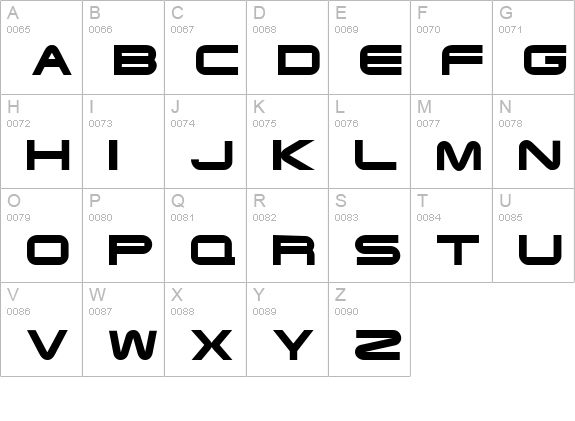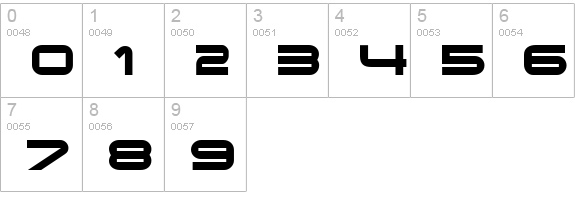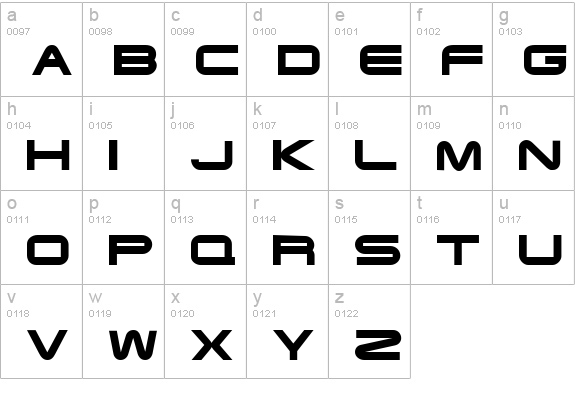
Terminator Cyr Semi-expanded Bold Font Details
Terminator Cyr Semi-expanded Bold is a strong, high-contrast, extended-width variant in the Terminator typeface family \xE2\x80\x94 well suited to headlines, attention-grabbing titles, and strong calls-to-action.
Terminator Cyr Semi-expanded Bold font is an extraordinary typeface that exudes strength and power. Its bold and assertive design captures attention and adds a touch of modernity to any project. With its semi-expanded shape, this font strikes the perfect balance between legibility and uniqueness, making it an ideal choice for headlines, posters, and branding materials. The Terminator Cyr Semi-expanded Bold font is characterized by its distinctive and sharp letterforms. Each character is meticulously crafted to convey a sense of dynamism and energy. The bold weight of the font gives it a commanding presence, ensuring that your message will be delivered with impact and authority. What sets Terminator Cyr Semi-expanded Bold font apart is not only its striking design, but also its availability for free. Yes, you read that right! This font is freely available to download at FontsMarket.com. Whether you're a professional designer or a casual enthusiast, you can now enhance your projects with the power and style of Terminator Cyr Semi-expanded Bold font without any cost. With its versatility and bold personality, the Terminator Cyr Semi-expanded Bold font is perfect for a wide range of applications. From print to digital, this font will elevate your designs and make them stand out from the crowd. Whether you're designing a logo, a magazine layout, or a website, this font will make a lasting impression on your audience. So why wait? Download the Terminator Cyr Semi-expanded Bold font now from FontsMarket.com and unleash its creative potential. Experience the freedom of having a high-quality and professionally crafted font at your disposal, without spending a dime. Take your designs to new heights and make a statement with the Terminator Cyr Semi-expanded Bold font.